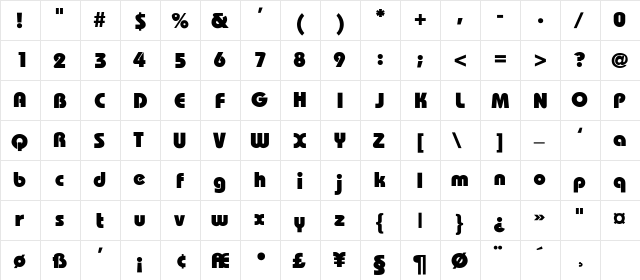
Bauhaus-Heavy-Bold Regular
Design Context for Bauhaus-Heavy-Bold Typeface
Bauhaus-Heavy-Bold offers clean, dependable letterforms without strong stylistic allegiance, making it a practical choice for designers who need flexibility. The heavy weight commands attention and anchors typographic hierarchies.